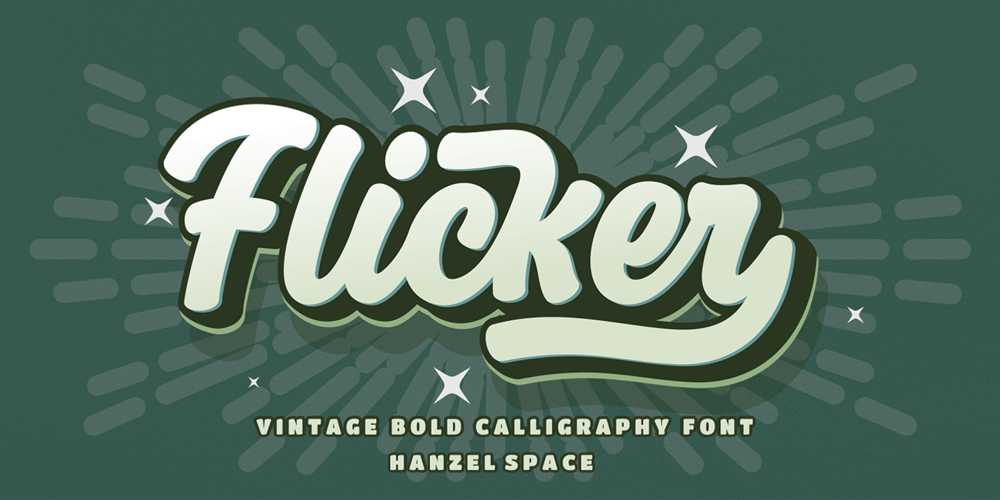
Flicker Lettering Font Family was designed by Hanief Farandi and published by Hanzel Space. Flicker Lettering contains 1 styles and family package options. Flicker – Vintage Calligraphy FontWe’re Introducing the “Flicker” Font we created in 2022. To talk more about the character of this font, please see a preview of how each Glyph in the font will look when applied to a design. This font has a vintage touch and a modern look to each letter, slightly rounded and neat shapes in each curve, plus a Stylistic feature at the end of the letters.We design this font in such a way that it is suitable when used for design projects so that it looks very attractive. And you can also use this font for logos, branding, brochures, names on product packaging and so on.Uppercase & Lowercase, Numeral, Punctuation, Miltilingual, Swash